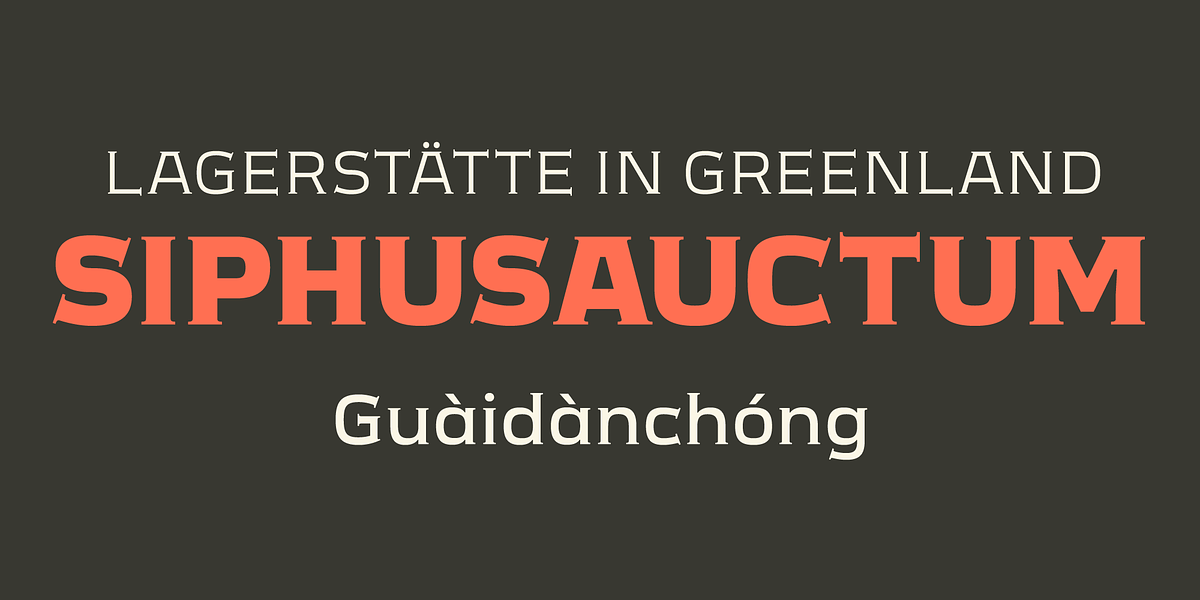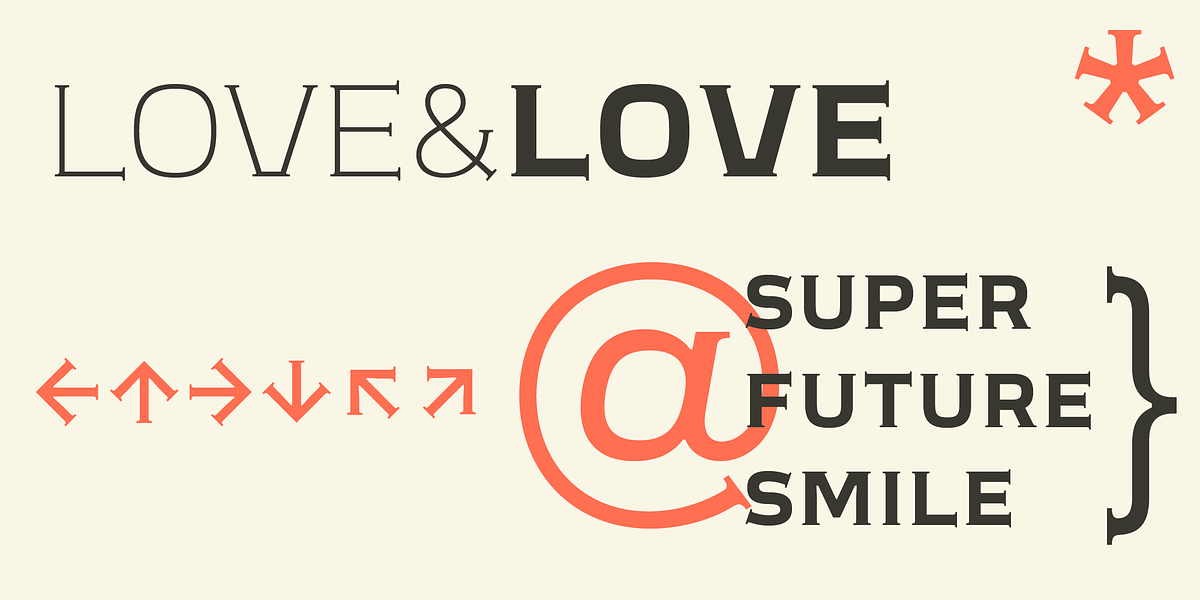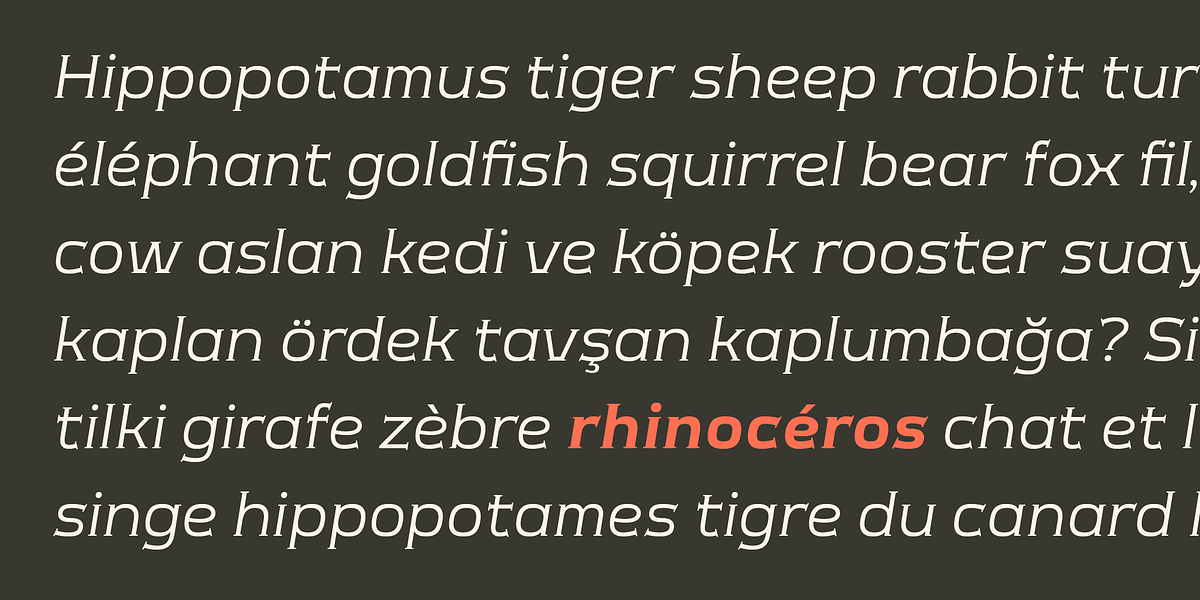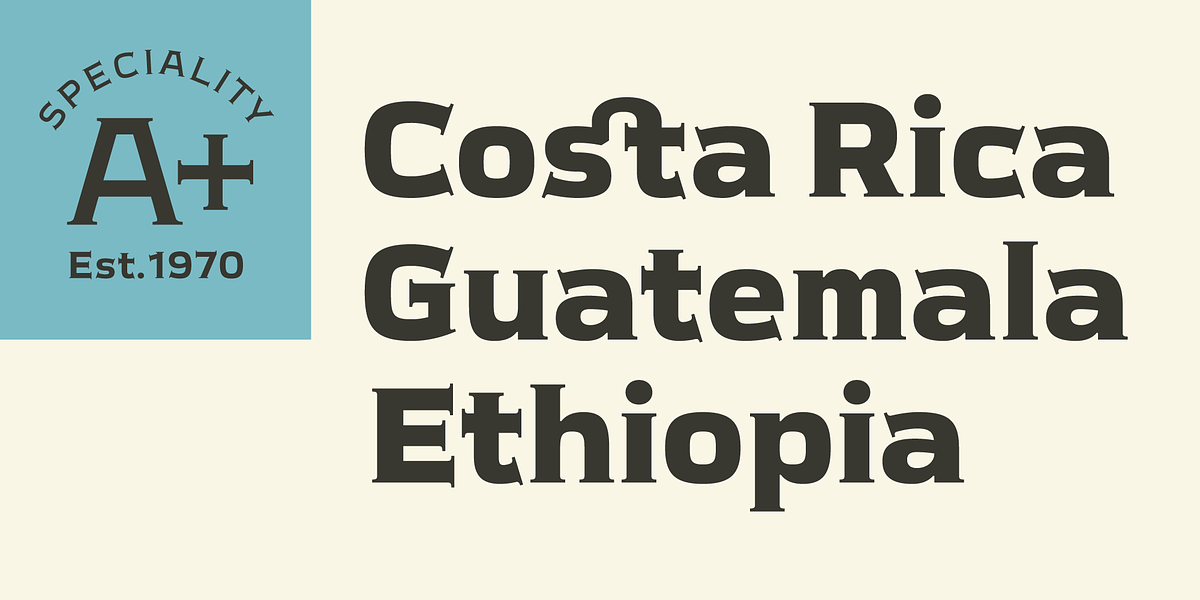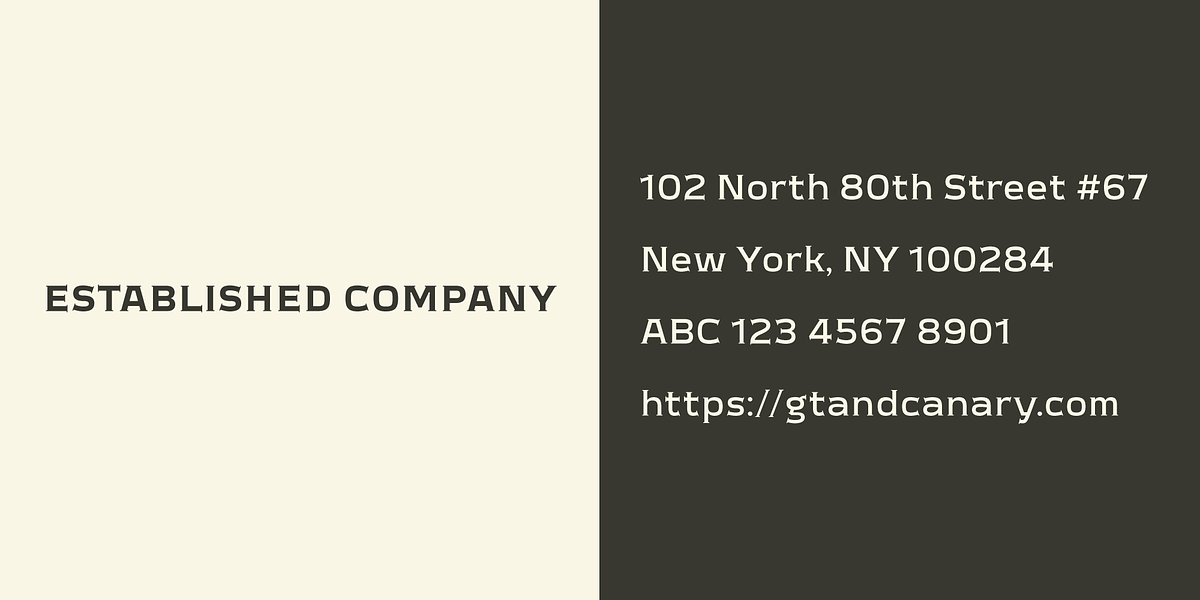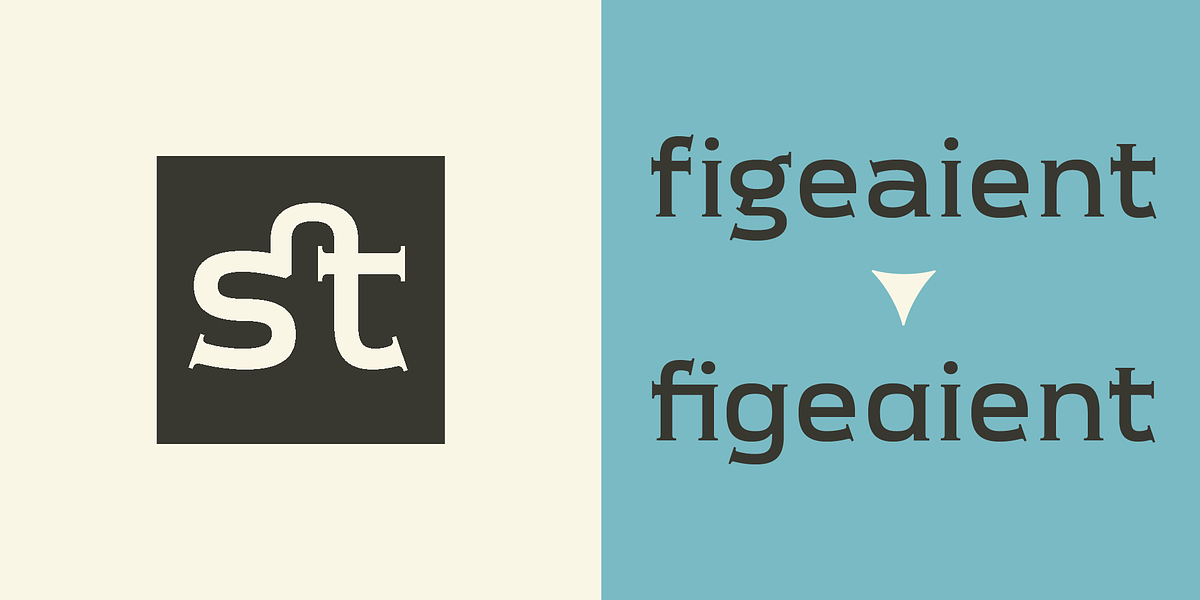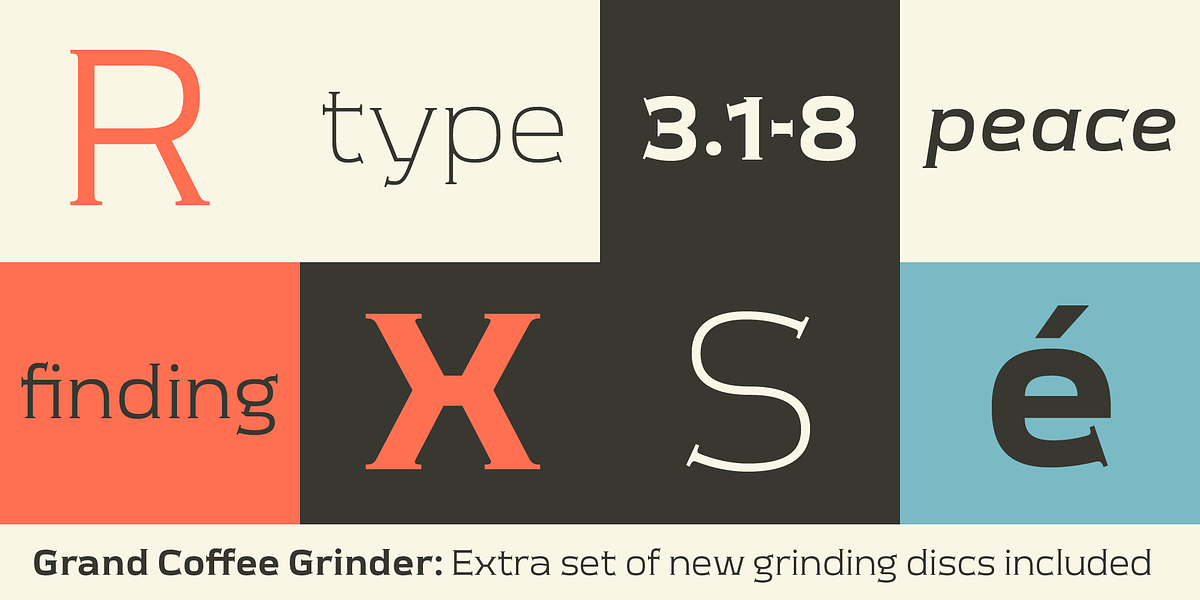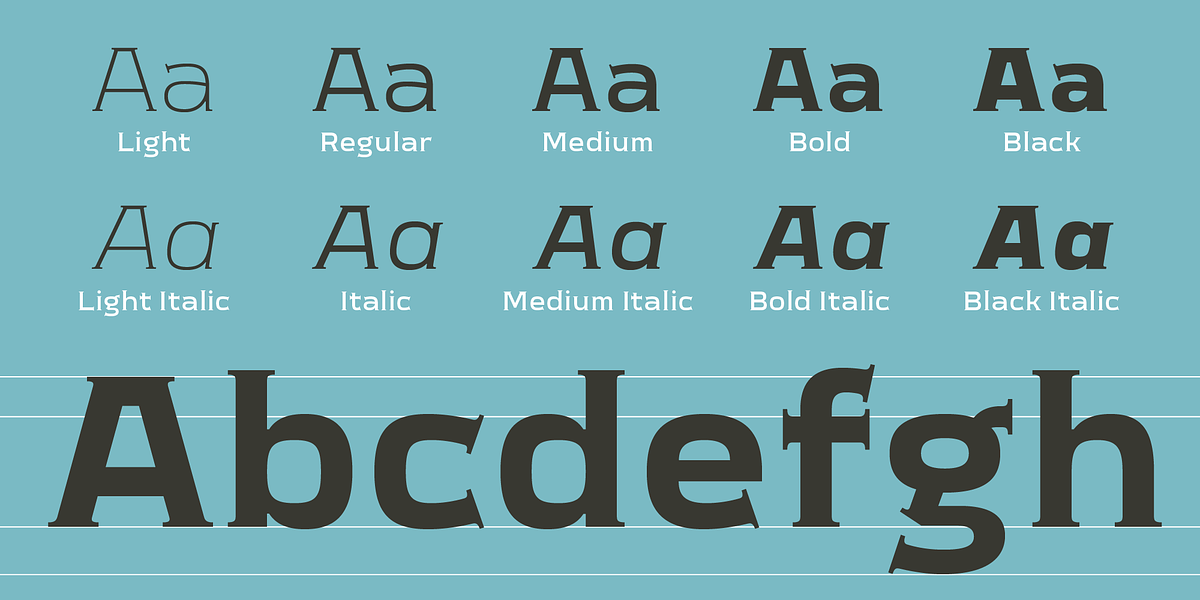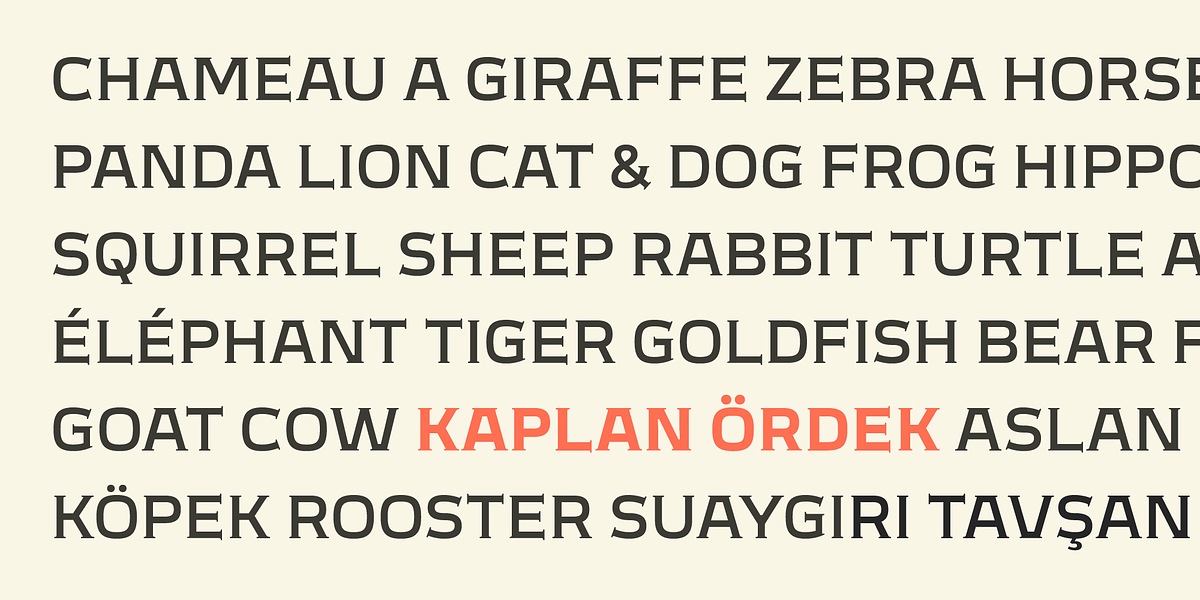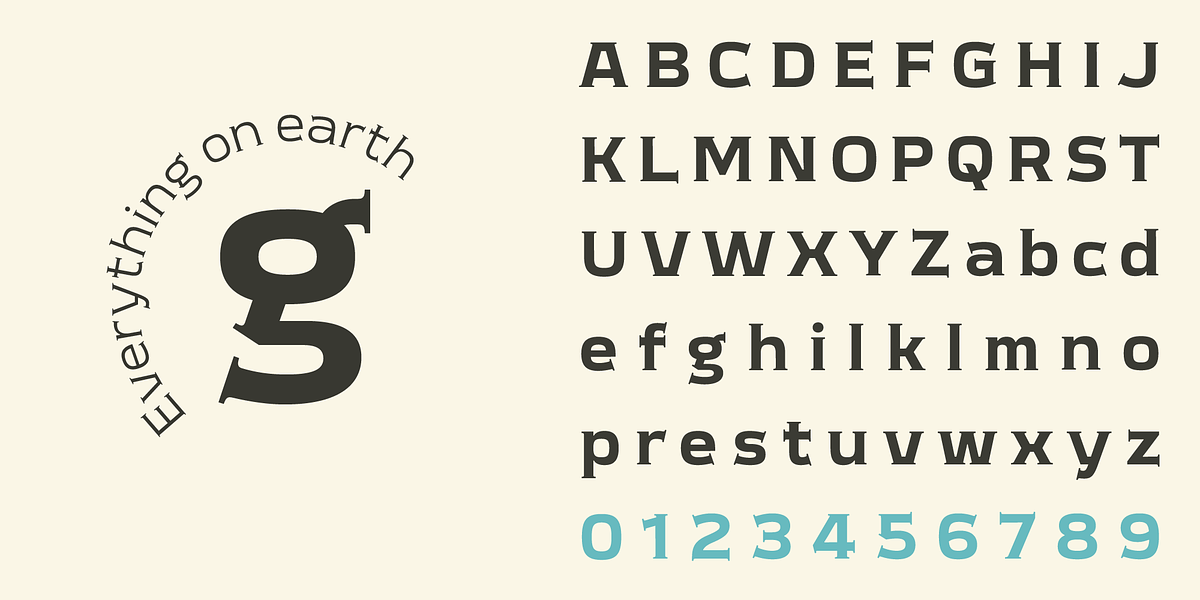
Meguro Serif
Meguro serif is a modern take on classic serif fonts, drawing inspiration from the elegance of early 20th century typefaces. It features a distinct boxy shape with small, pointy serifs that emphasize the edges of its strokes. The very high x-height contributes to its excellent legibility, making it suitable for both body text and display purposes. The Meguro serif family comes in five weights and matching italics, offering versatility for various design applications.